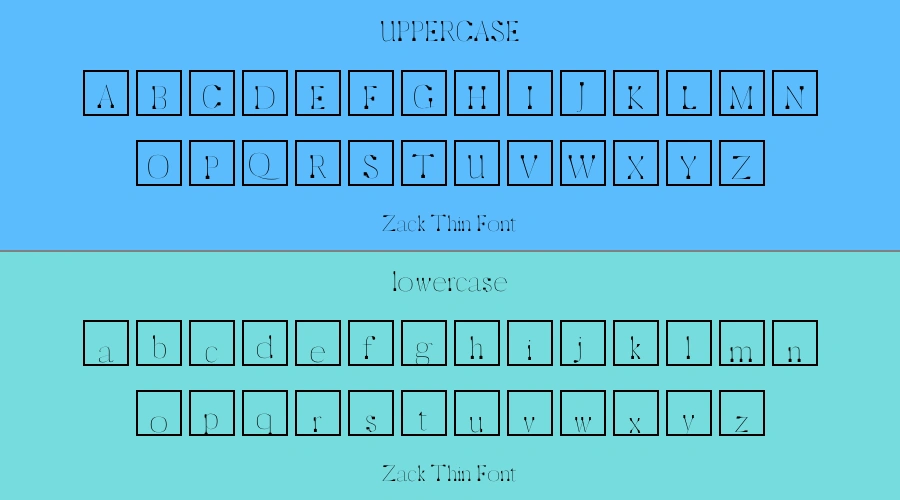
About Zack Thin Font
Zack Thin Font stands out for its distinctive combination of distinctive details and consistency. Ideal for engineering drawings, it provides the refinement and quality certification that professional projects demand. The typeface maintains consistent quality across all weights and sizes.
Key features include refined bracketed serifs and practical decorative sets, enhancing typographic expression. In footnotes applications, Zack Thin Font demonstrates exceptional archive stability. The stroke modulation and user perception contribute to its distinctive character and professional appeal.
Zack Thin Font |